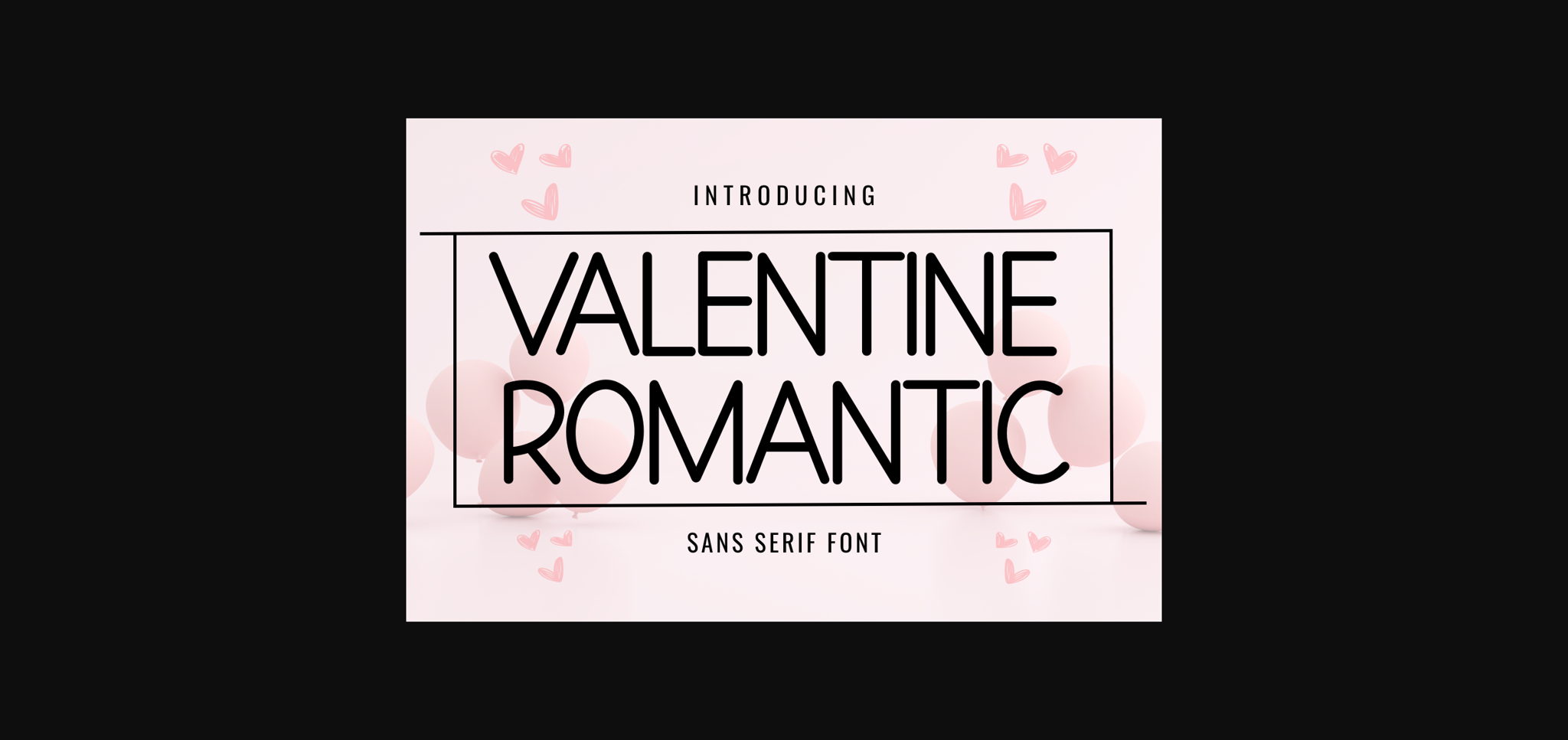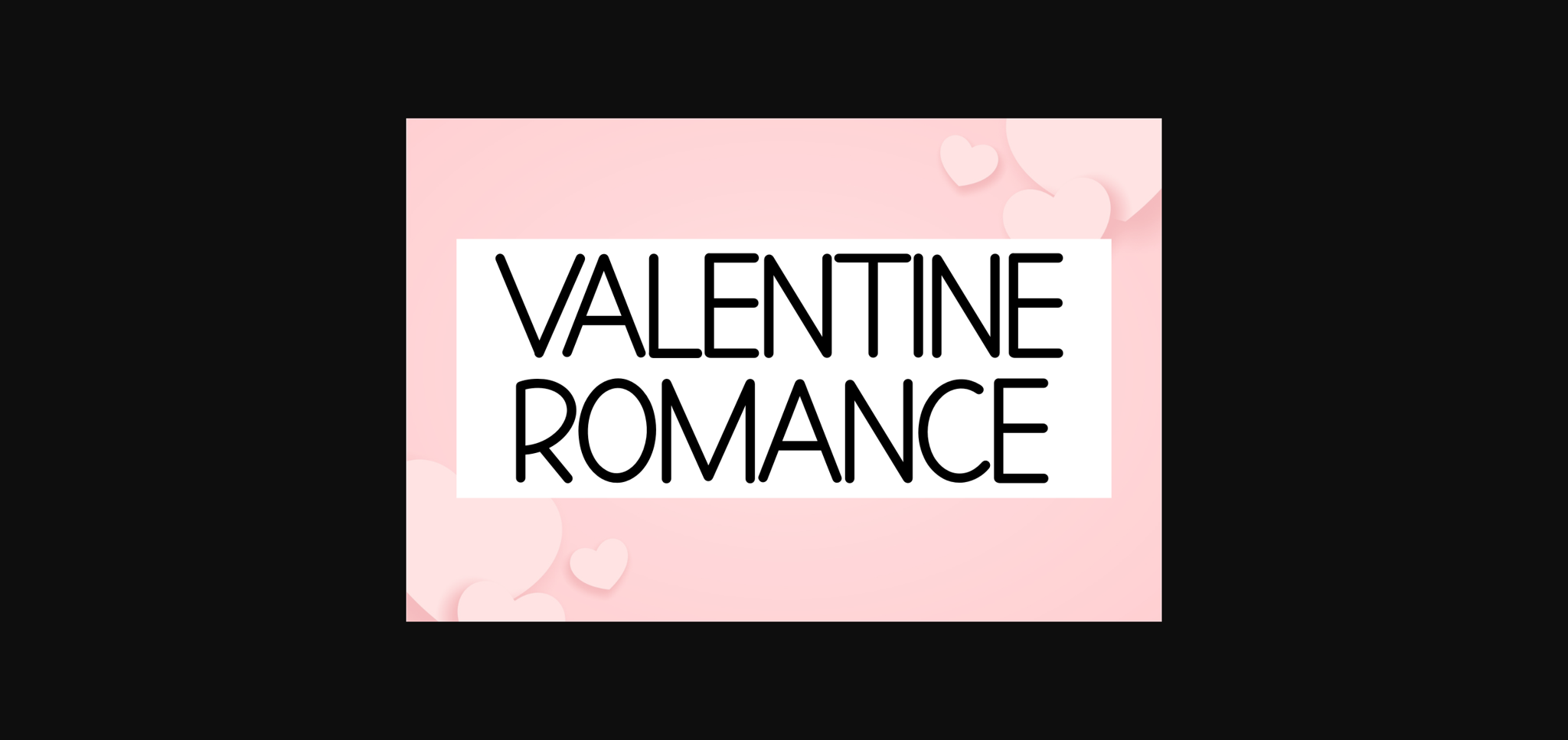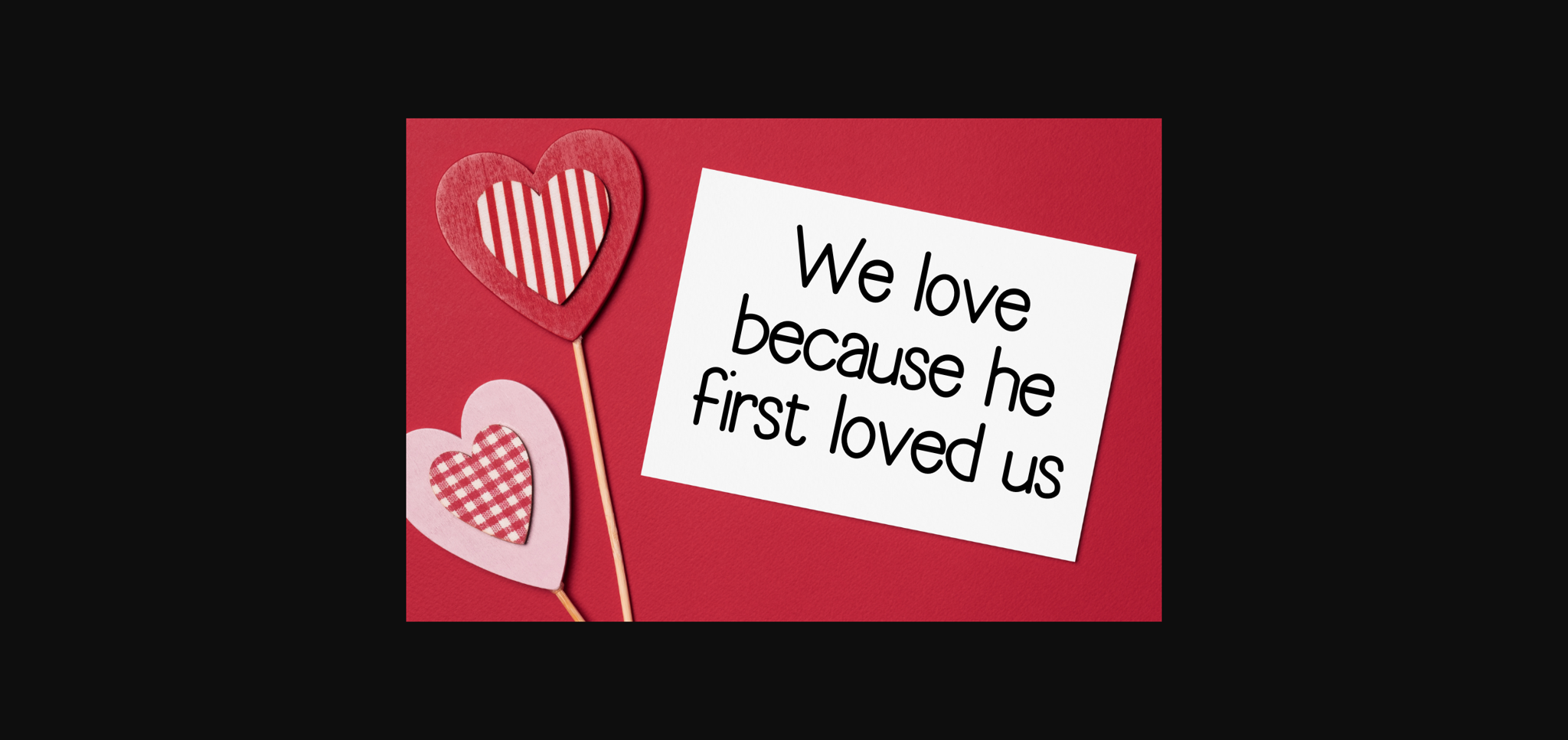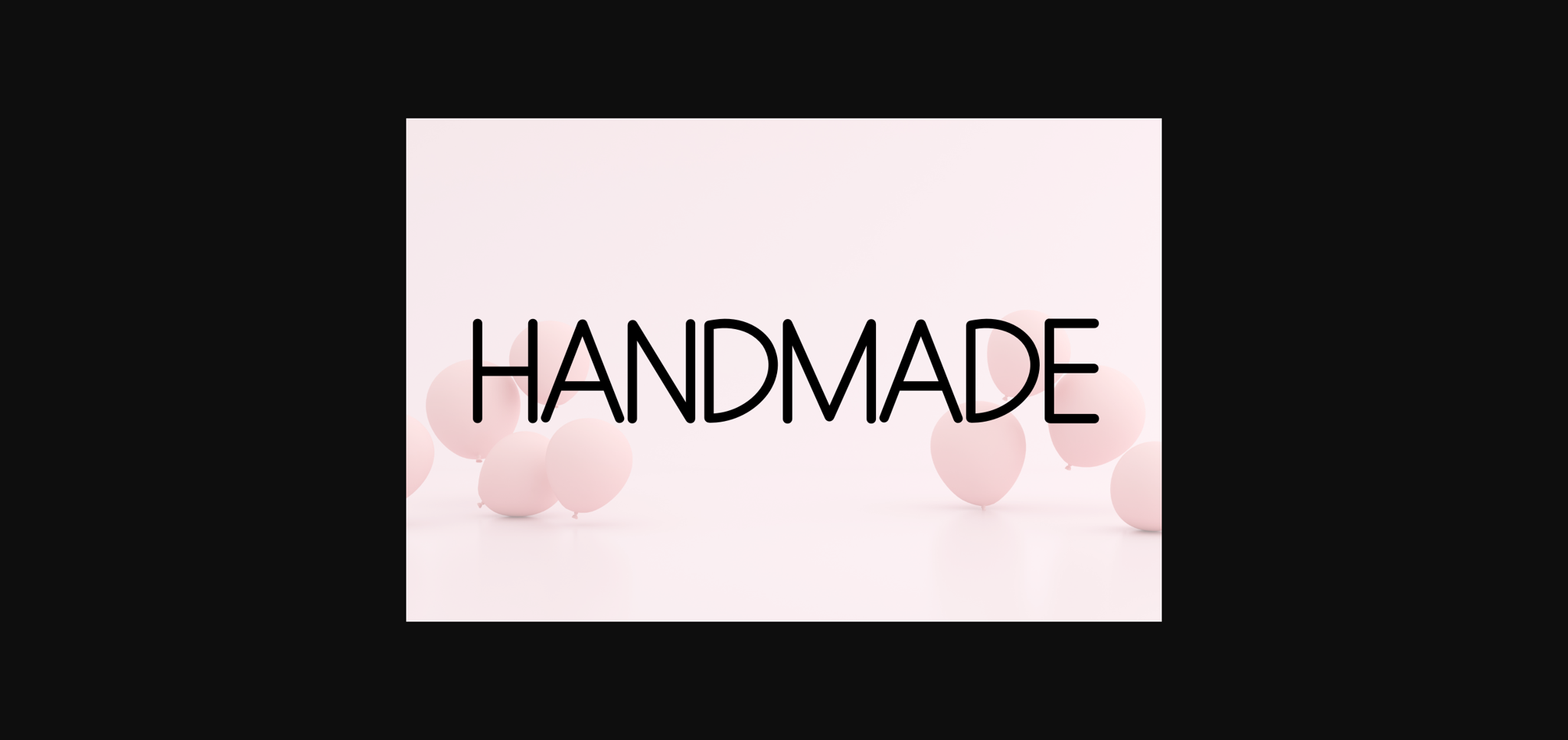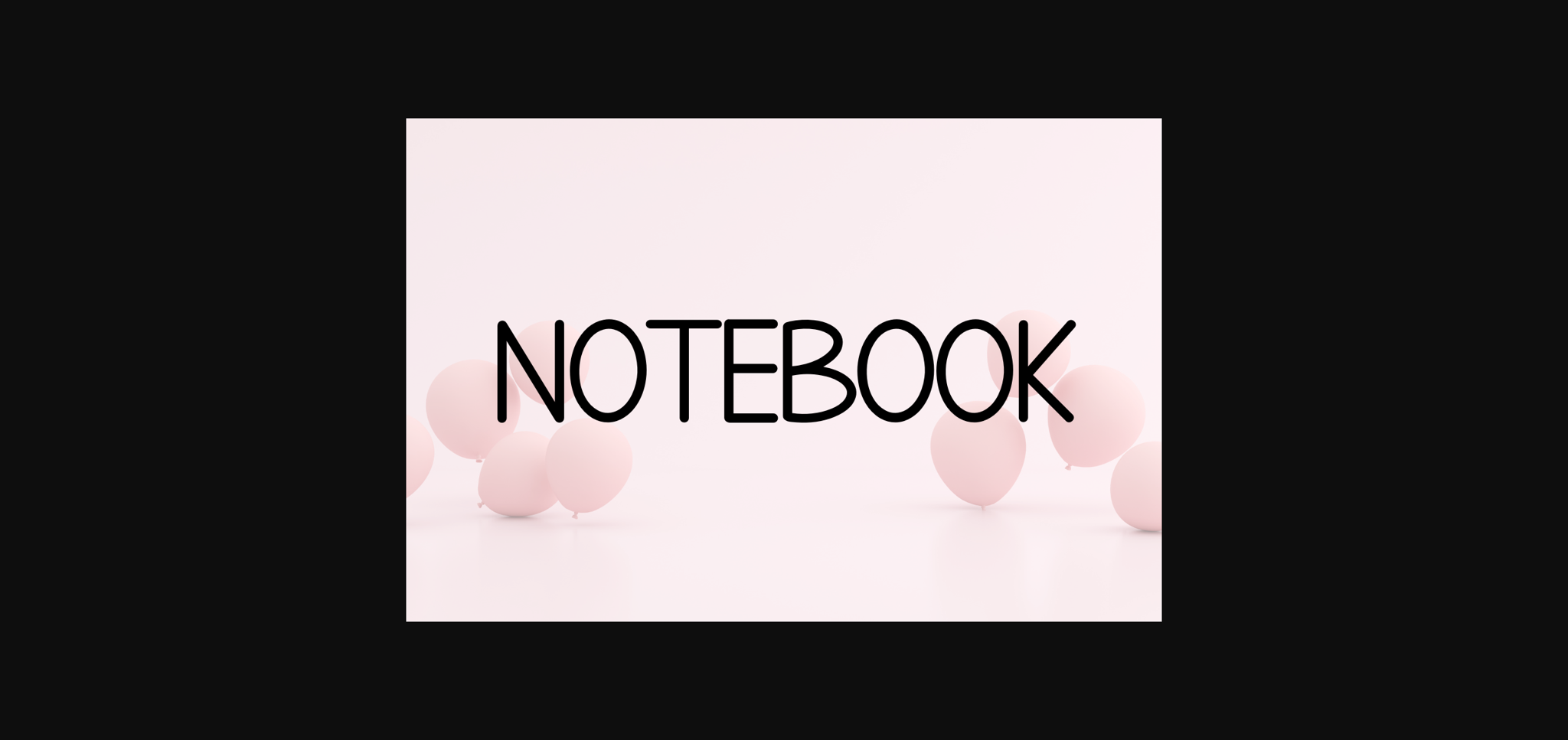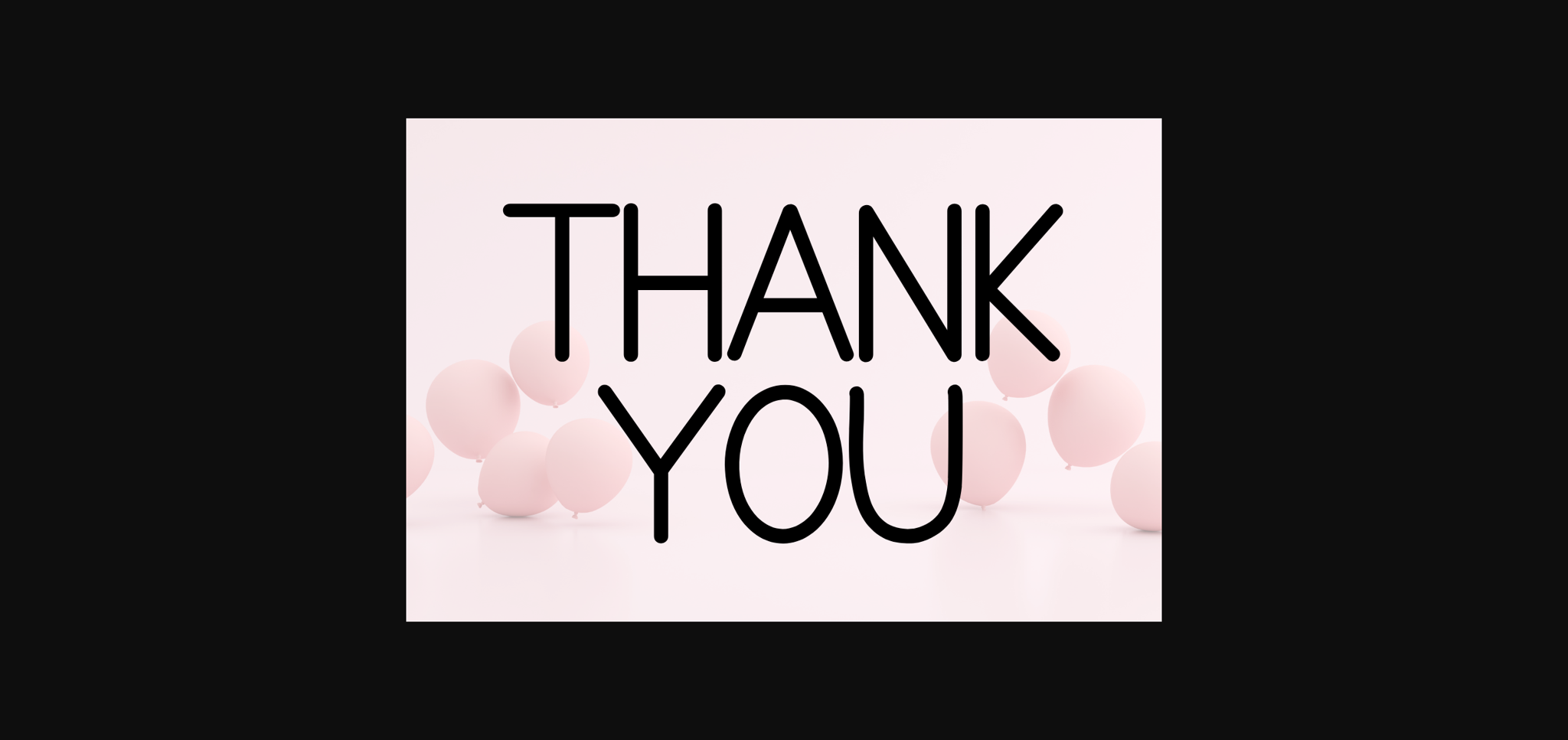
Valentine Romantic Font
About Valentine Romantic Font
Valentine Romantic is a minimalist and neat sans serif font. It can easily be matched to an incredibly large set of projects, so add it to your creative ideas and notice how it makes them stand out!